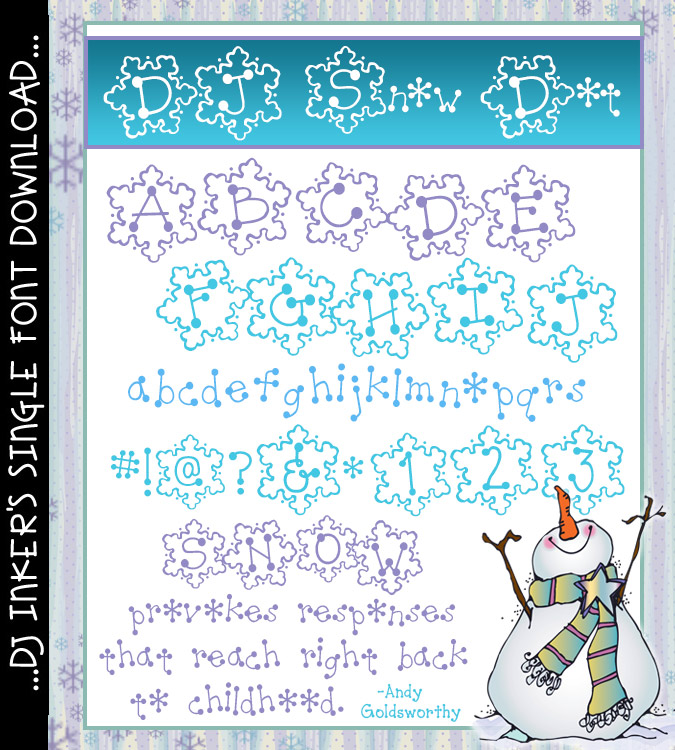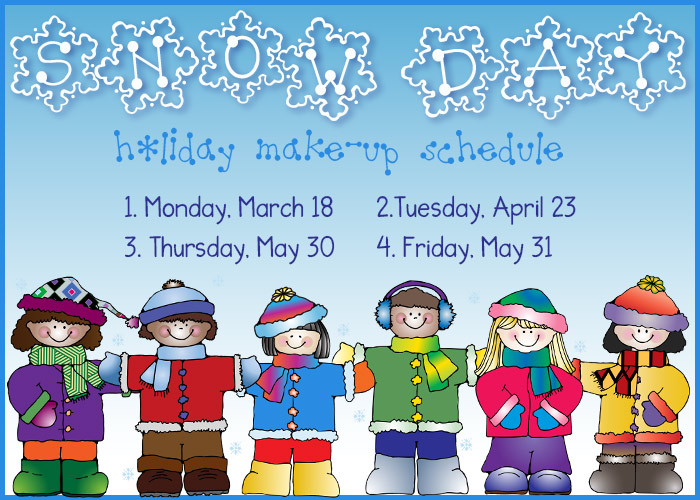
DJ Snow Dot Font Download
Let it Snow Smiles! Our cool winter font, DJ Snow Dot will help you create the warmest of wishes. It will look brrrrrilliant on craft projects, holiday gifts, winter newsletters, scrapbooks & more! Try typing in white over a dark background for a really fun, snowy effect.